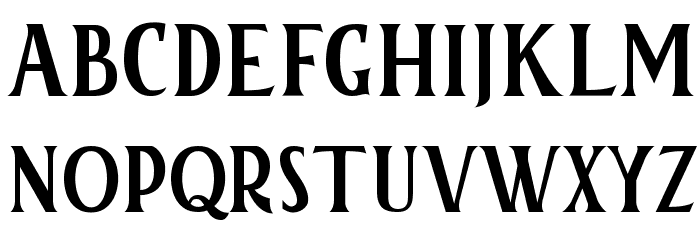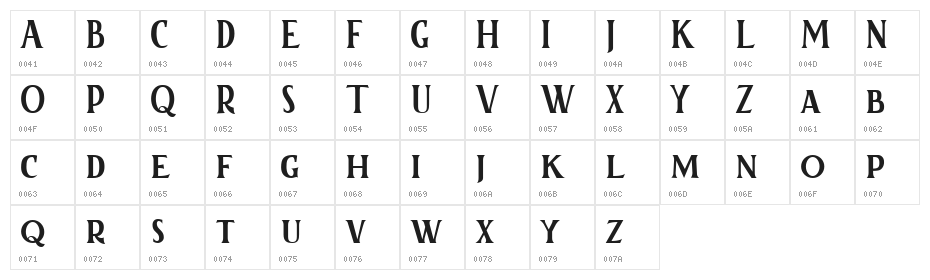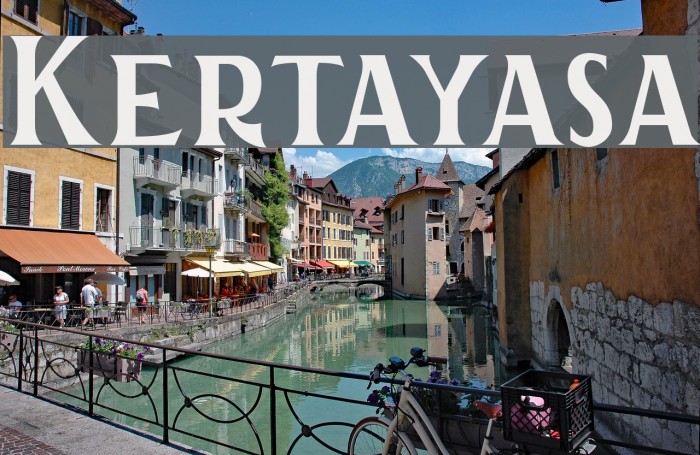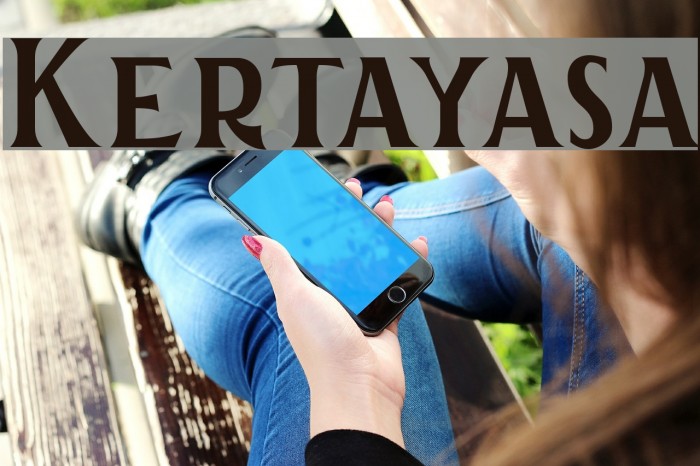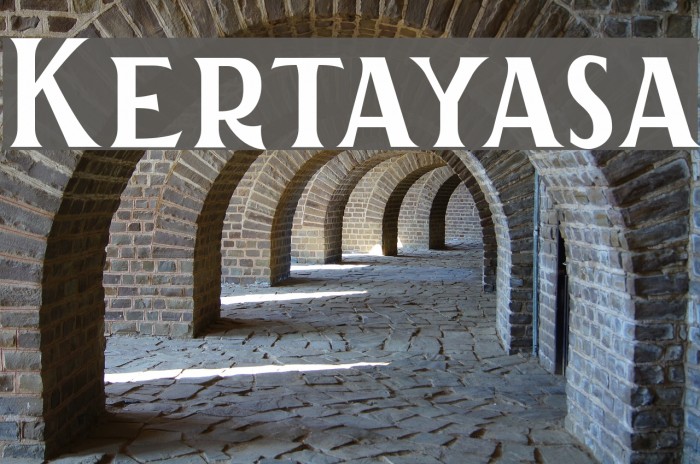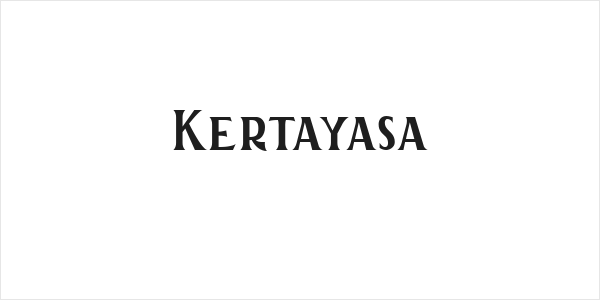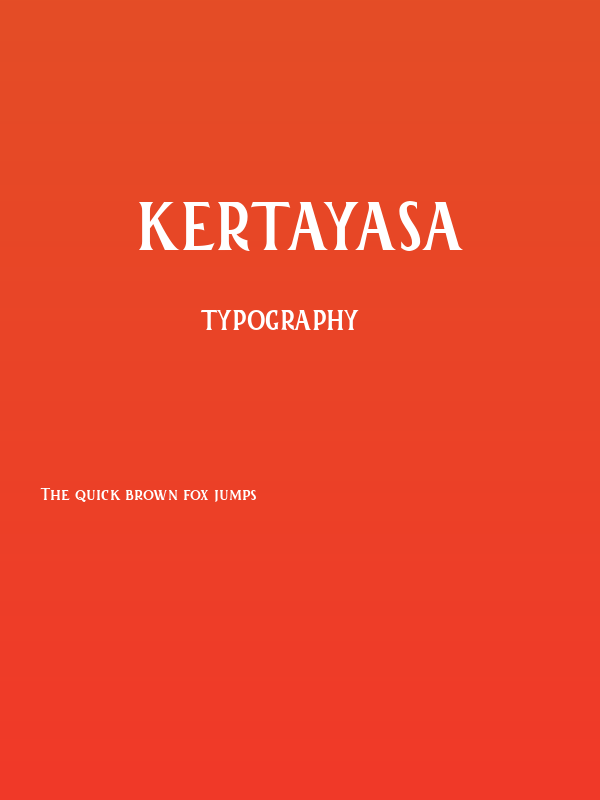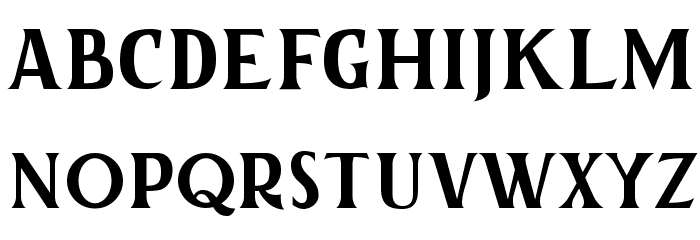
Kertayasa Font
Kertayasa Description
This font features a strong, bold presence with its thick, angular serifs and slightly condensed letterforms. The strokes are consistent, providing a uniform appearance across all characters. Its design is reminiscent of traditional serif fonts but with a modern twist, making it suitable for both classic and contemporary applications. The uppercase letters are particularly striking, with their pronounced serifs and clean lines, while the lowercase letters maintain a balanced and readable form. This font is versatile, capable of conveying authority and elegance in equal measure.
Fonts by Aku Fadhl
| Proposed Projects | Ideal for book covers, editorial headlines, branding, and logo design. |